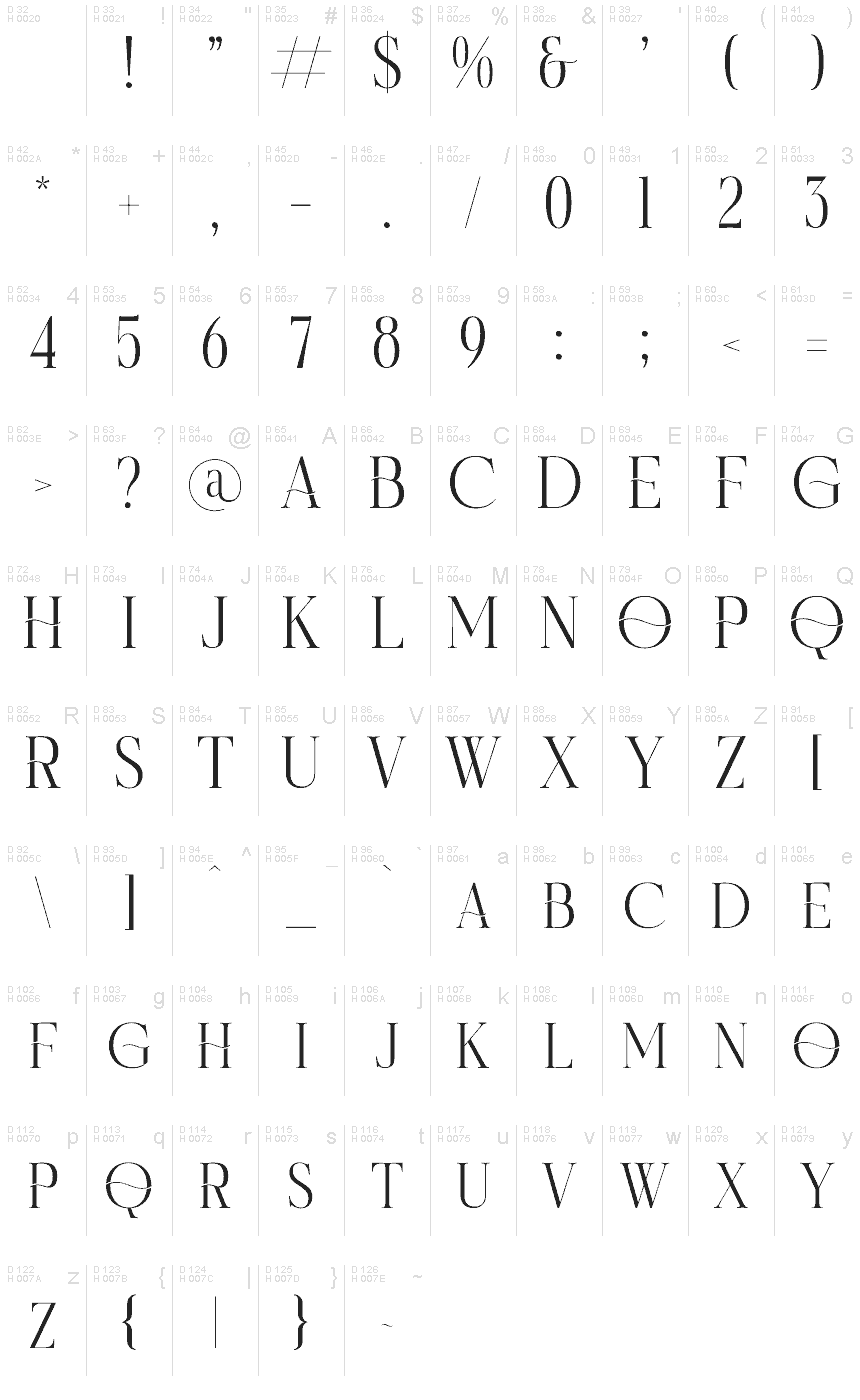
Magison
Magison font by Storytype Studio is an elegant serif font with sophisticated features that combine elements from classical typography, modern flair, and slight curvature elements. The minimalistic approach taken by the designer results in a condensed font of wel streamlined characters that creates harmony within each word written with it.
Free to download and use, Magison can be added to logos and branding designs as well as stationery projects while also being a classy addition to magazines covers and interior pages. Use it for books and novels or posters present it on social media platforms.